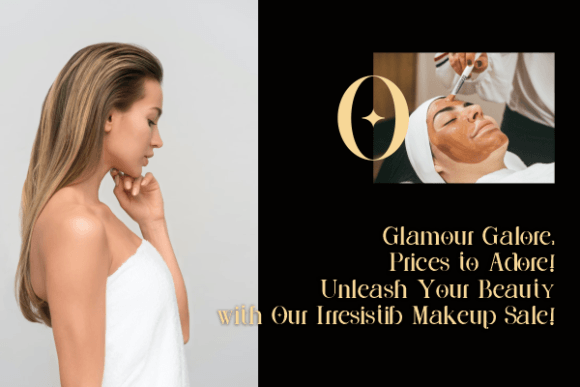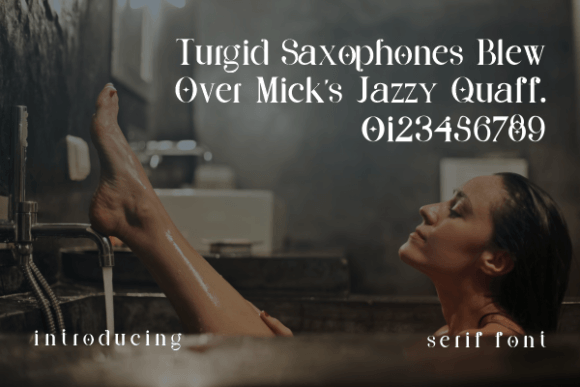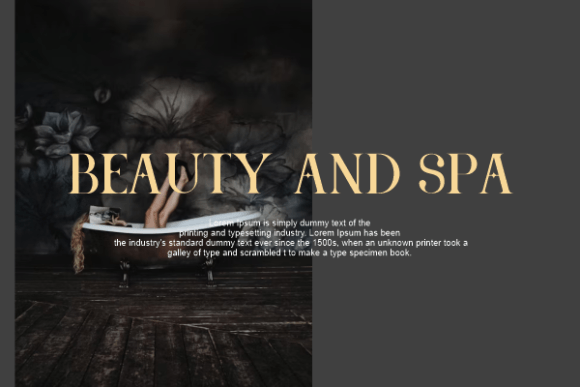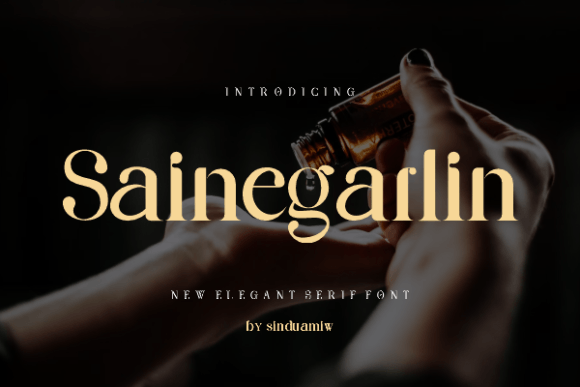
Introduction to Sainegarline Font
This font is very elegant, strong, nice, and beautiful, and feels amazing font.
This font is suitable for loud designs, posters, quote designs, etc You must try this font.
Sainegarline Font offers exceptional quality and versatility, making it a valuable addition to your design toolkit. Whether you’re creating for personal projects or commercial use, Sainegarline Font delivers professional results.